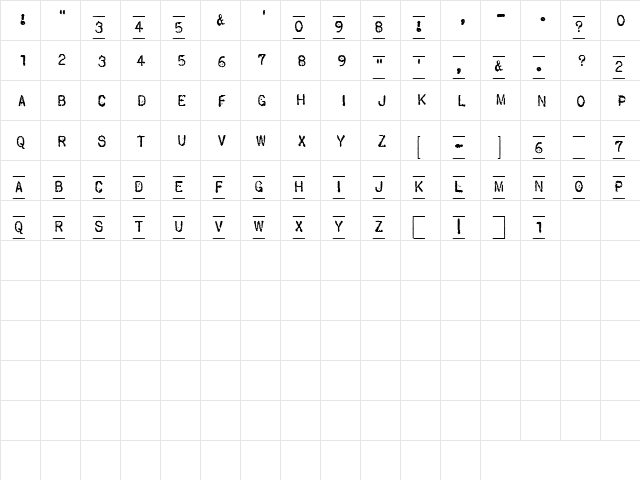
LD Telegram Regular
Design Context for LD Telegram Typeface
LD Telegram takes a measured approach to typography — its balanced proportions and neutral character make it a reliable workhorse for both digital and print work.